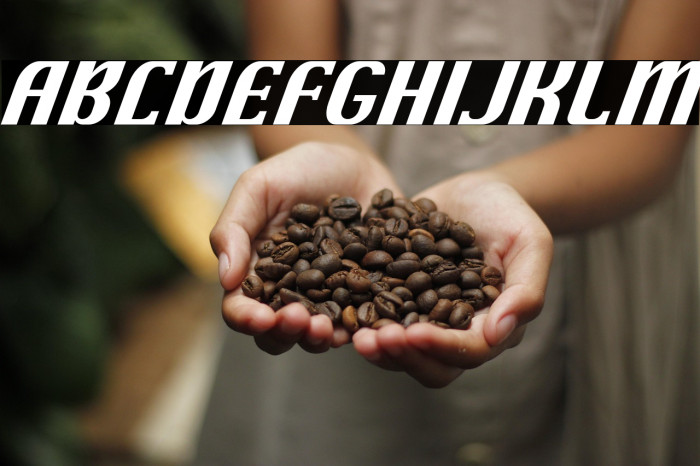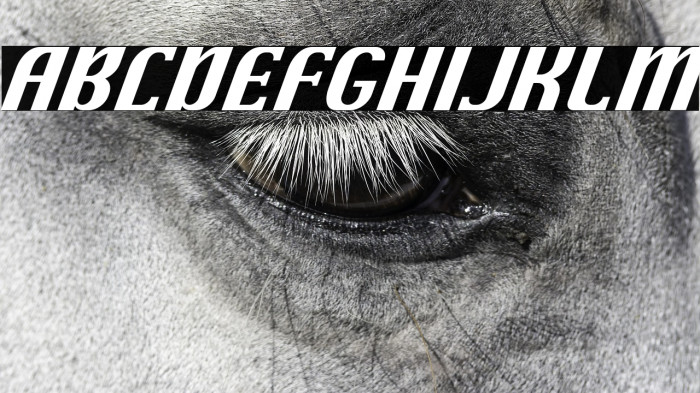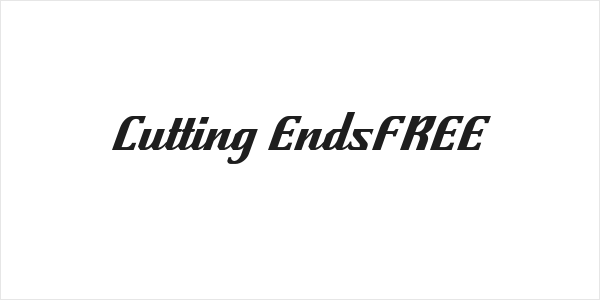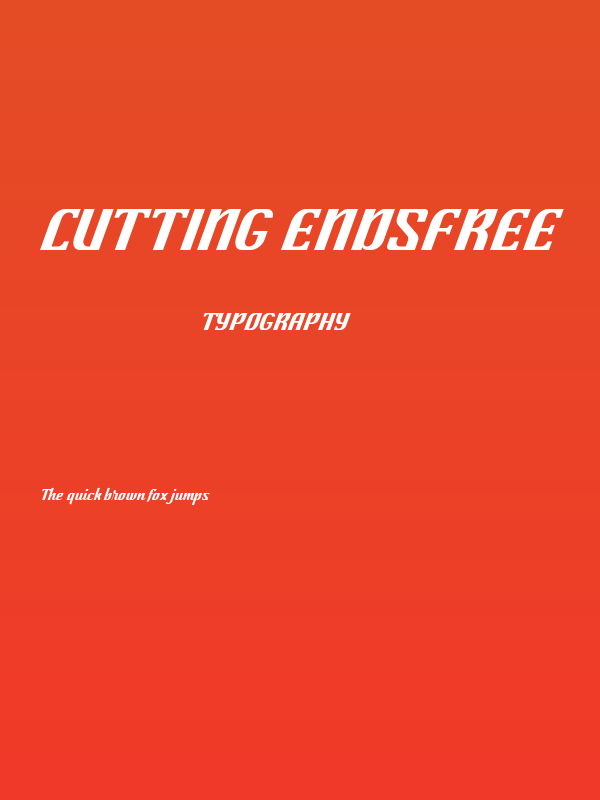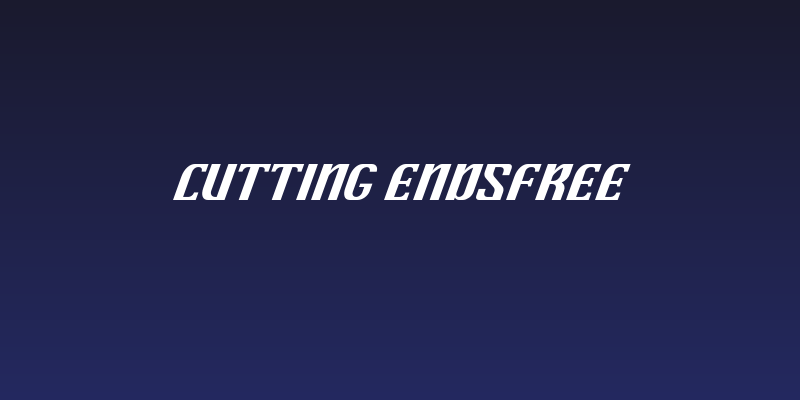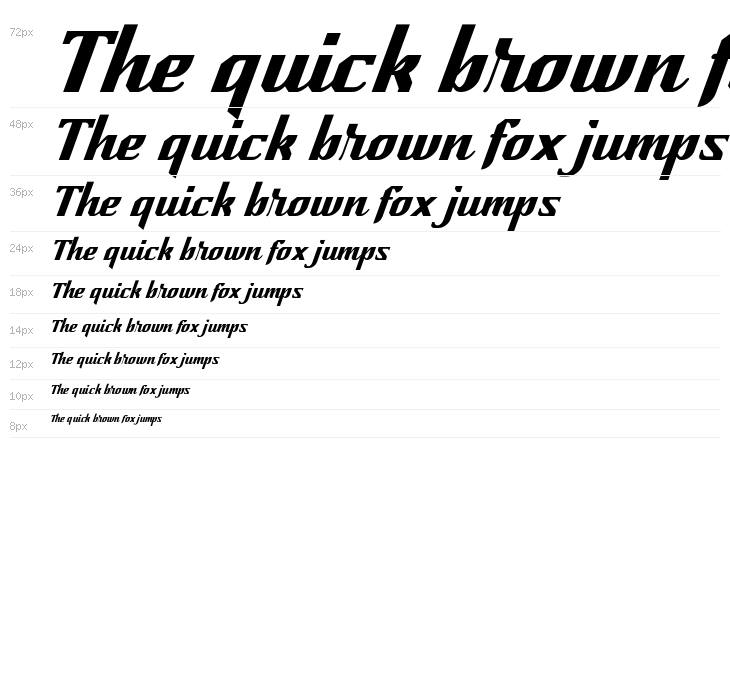
Cutting-EndsFREE Font
Cutting-EndsFREE Description
This font features a bold and dynamic style with sharp, angular edges that give it a cutting-edge appearance. The uppercase letters are particularly striking, with a strong presence and a slight slant that adds a sense of motion and energy. The lowercase letters maintain this dynamic quality, ensuring consistency throughout the typeface. The numerals and special characters are designed to match the overall aesthetic, making this font suitable for attention-grabbing designs. Its unique style makes it ideal for projects that require a modern and impactful look.
| Proposed Projects | Ideal for branding, posters, headlines, and any design that requires a modern, impactful look. |